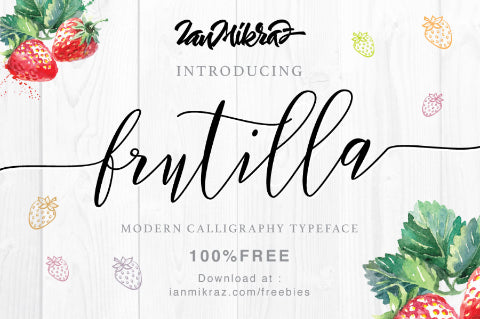
Grab this eye-watering free fruitilla modern script typeface into your repertoire. Give a boost to your designer life. Download this free typeface from the original source of Free Design Resources. Amaze your fellow designers and create stunning designs with this fancy font.